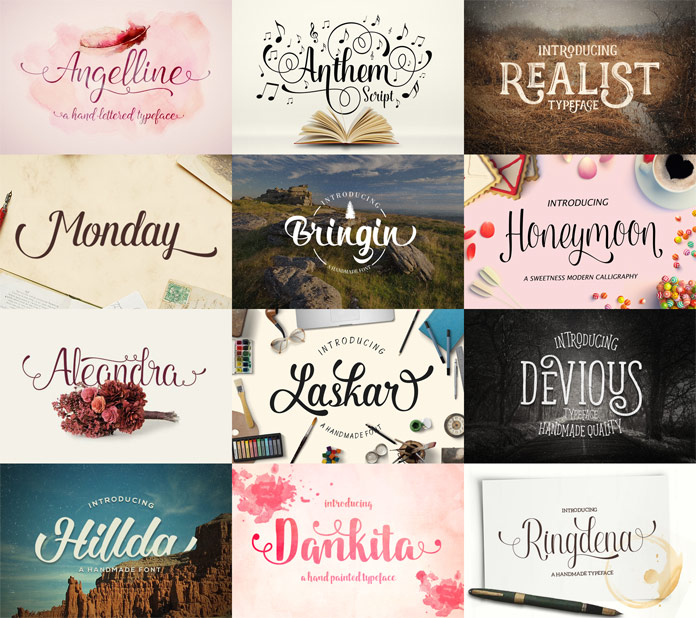
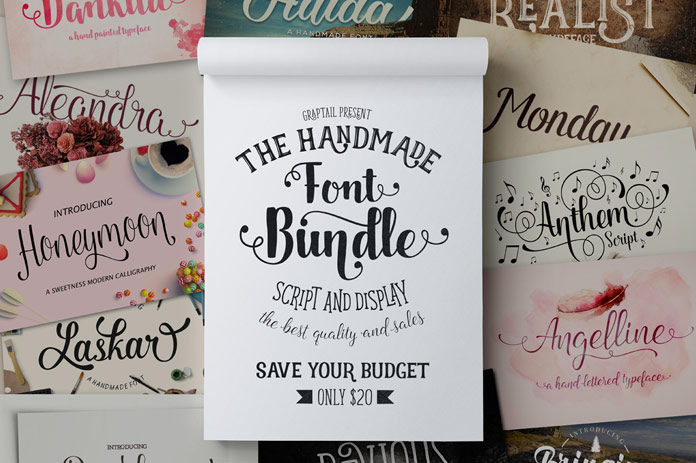
What do you get when you download Graptail’s handmade font bundle?
The team of Graptail has packed together a set of their best-selling typefaces including Angelline, Anthem Script, Realist, Monday, Bringin, Honeymoon, Aleandra, Laskar, Devious, Hillda, Dankita, and the Ringdena font. These 12 premium fonts are equipped with hundreds of bonus glyphs and numerous typographic features such as ligature, contextual alternates, stylistic alternates, diverse stylistic sets, and swashes. The additional features can be accessed using an OpenType savvy program like Adobe Illustrator or InDesign. Below you can see some thumbnails of all included typefaces. The set is equipped with lovely designed script and display fonts. Don’t miss the chance to get these beautiful handmade typefaces for only $20!